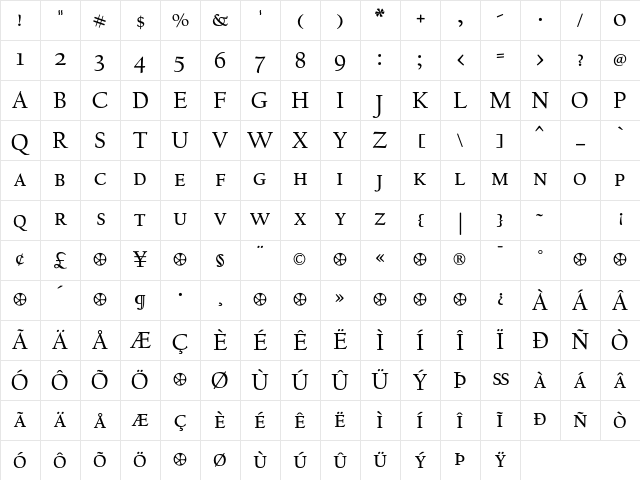
CalifornianText RomanExpert
Style: RomanExpert
Complete CalifornianText RomanExpert glyph index. Displaying only characters natively supported by CalifornianText RomanExpert font.
Design Context for CalifornianText
CalifornianText is a composed and adaptable typeface that performs quietly and consistently across a wide range of design contexts.